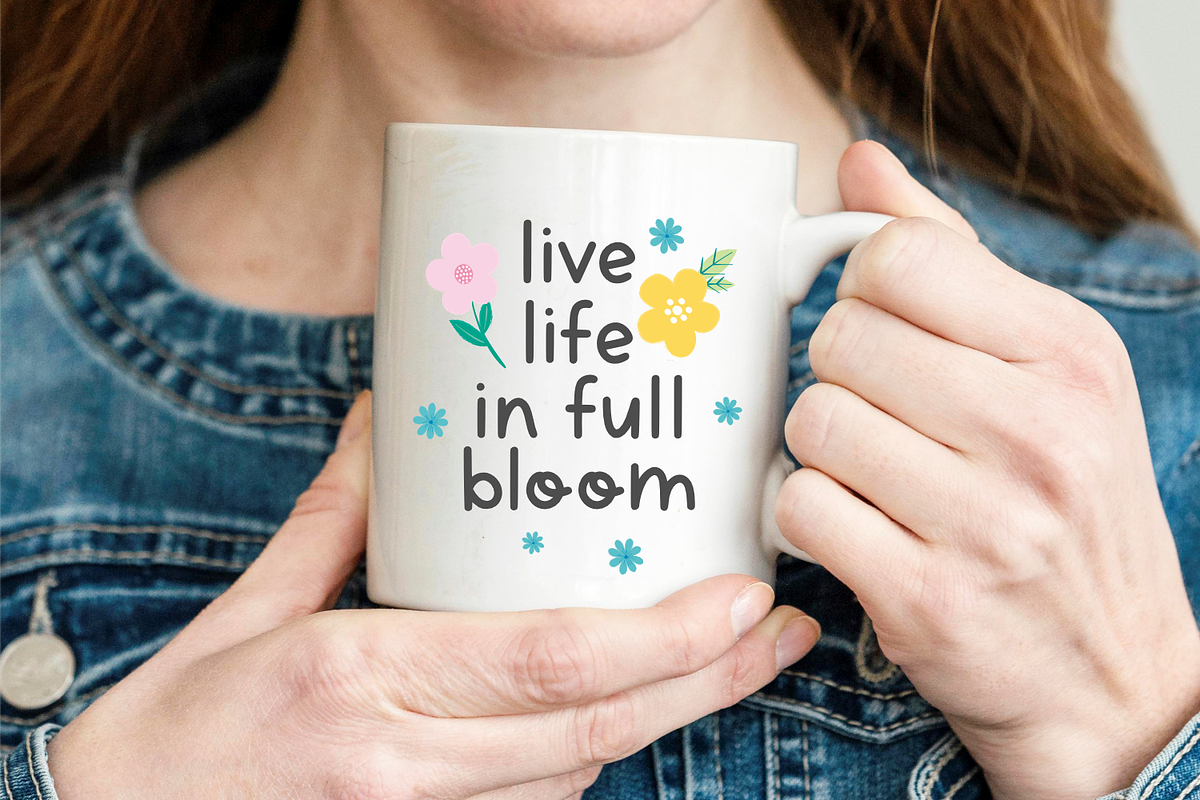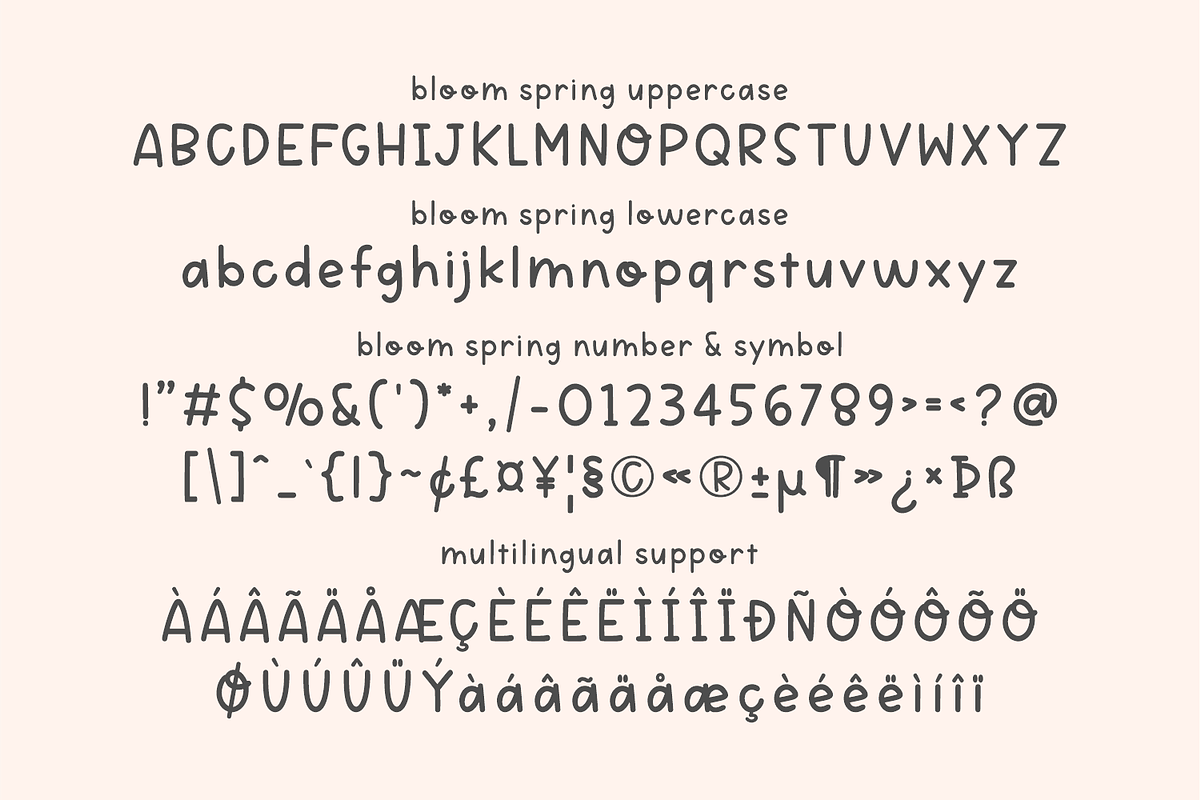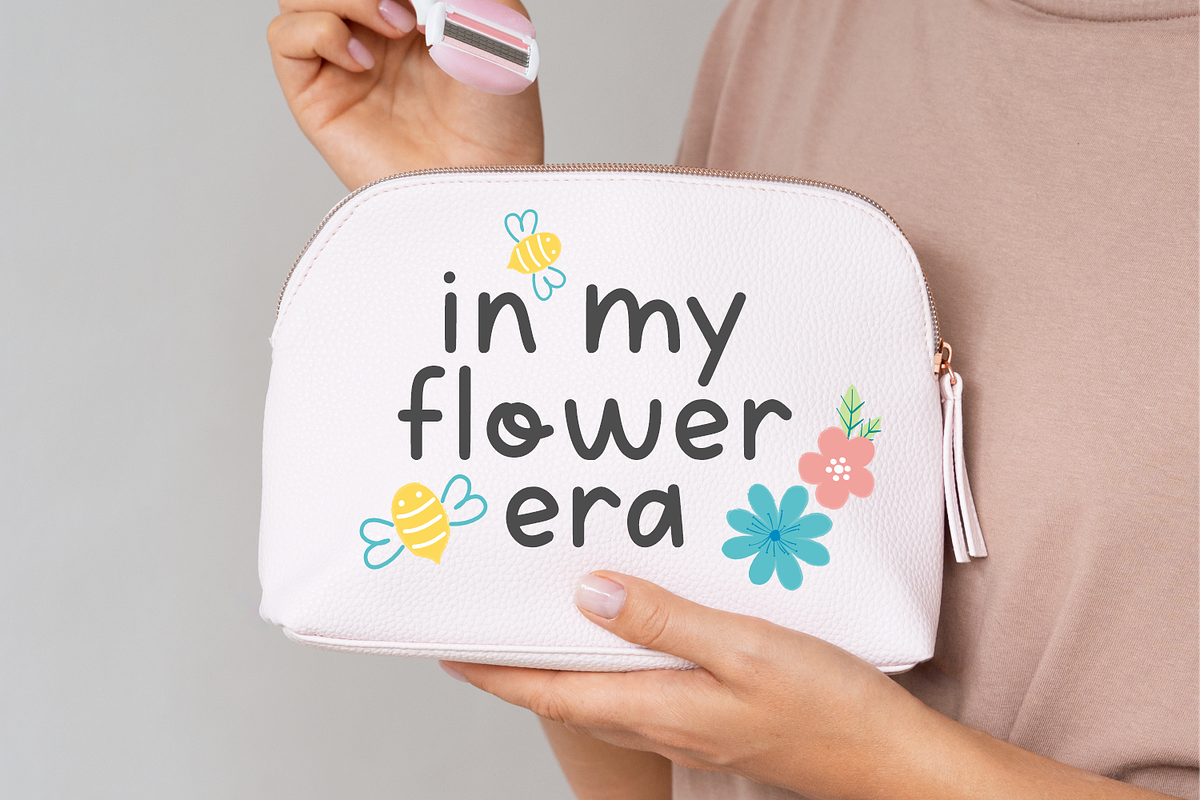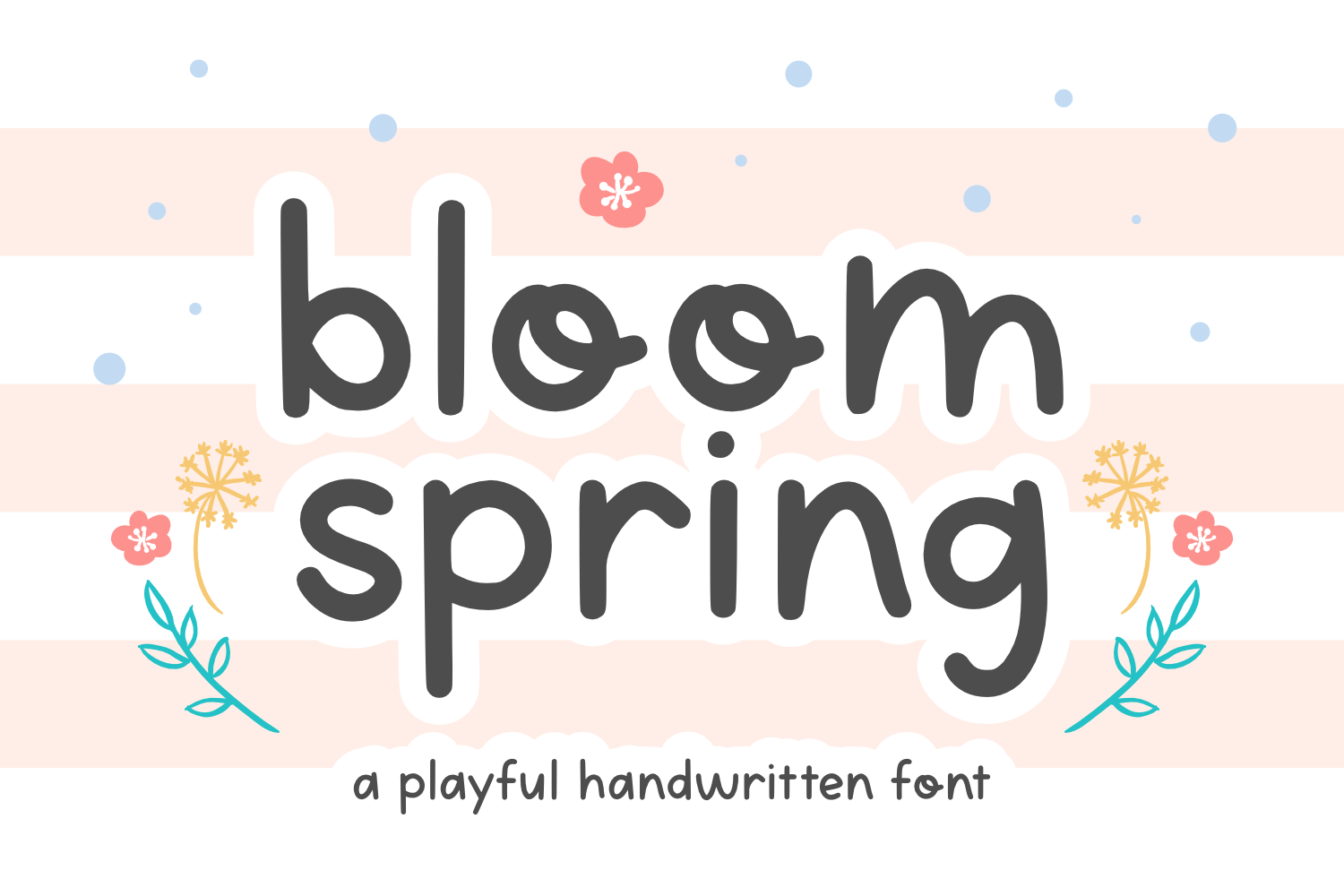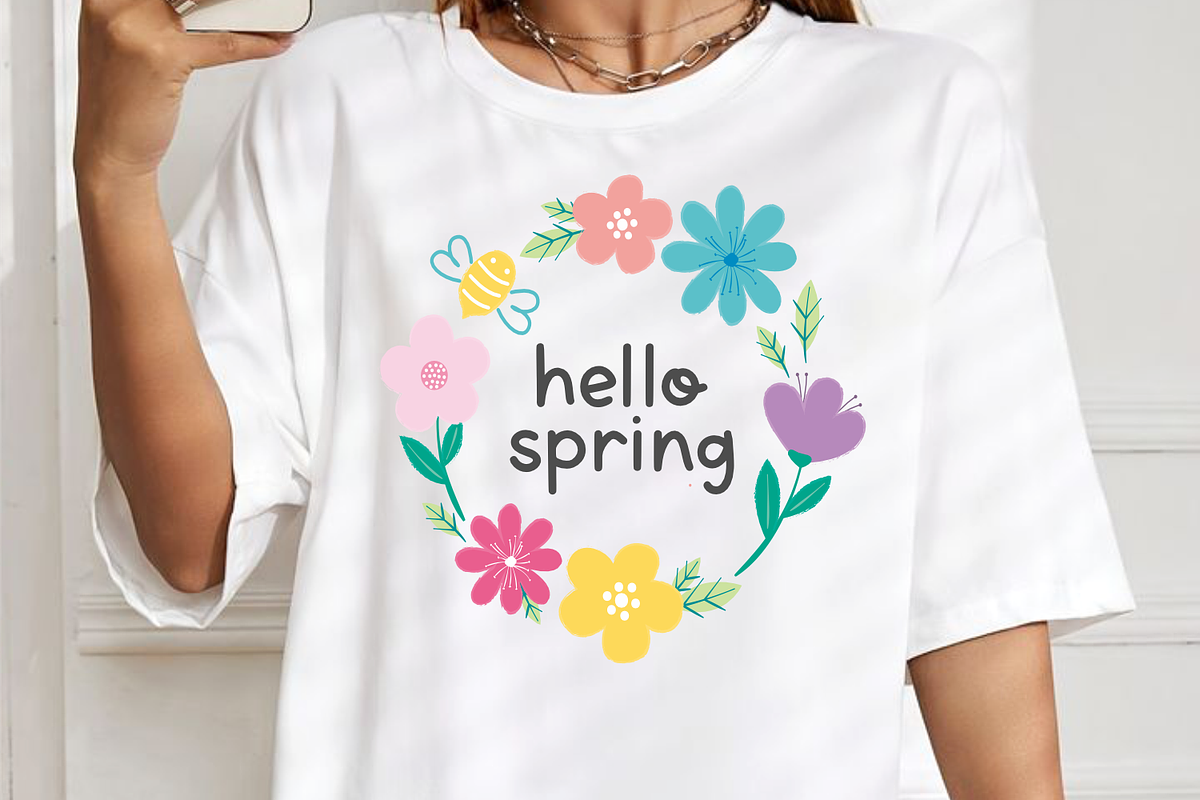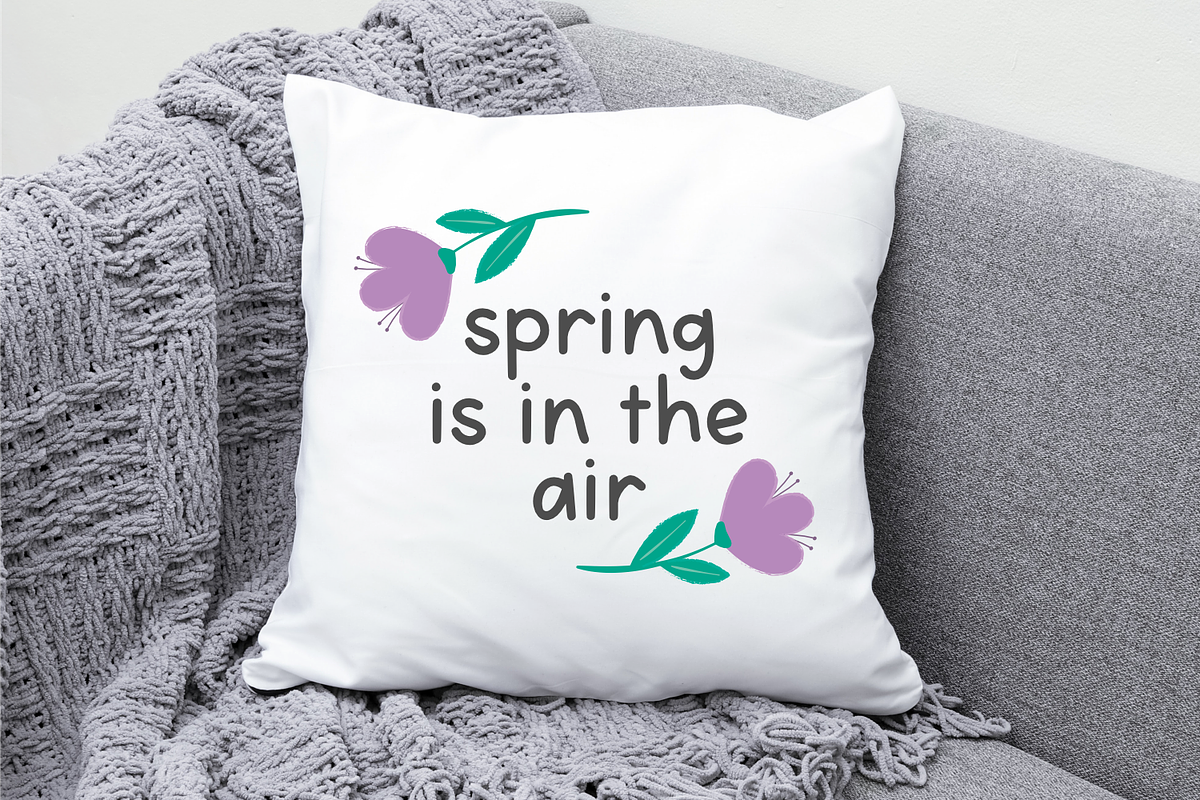
Bloom Spring - Playful Kids Font
Bloom Spring font exudes the cheerfulness and refreshing spirit of spring. Each stroke of the letter feels light and flowing, as if dancing with the spring breeze. The loose and slightly curvy writing style gives a spontaneous and fun impression, like a cheerful hand-drawn font.
Bloom Spring font ideal for designs that want to convey a cheerful message, such as spring greeting cards, garden party invitations, or family event posters. It is also suitable for children’s product designs, snack brand logos, or spring-themed social media content.